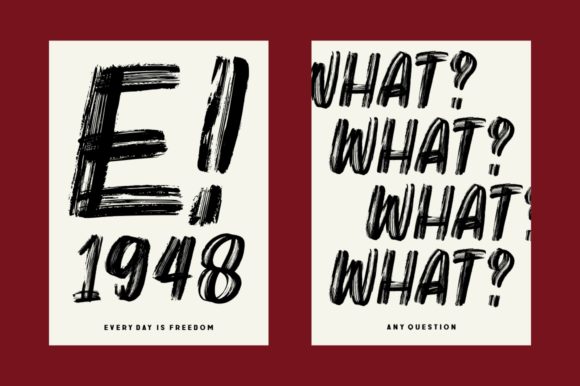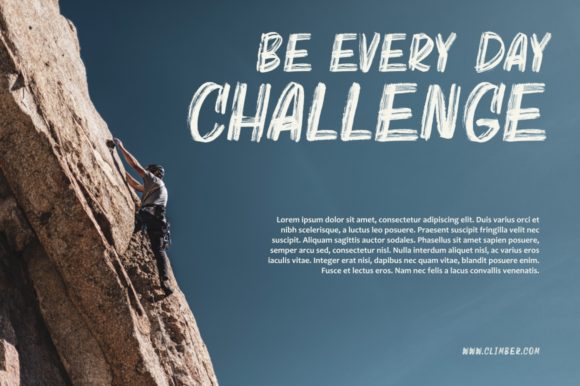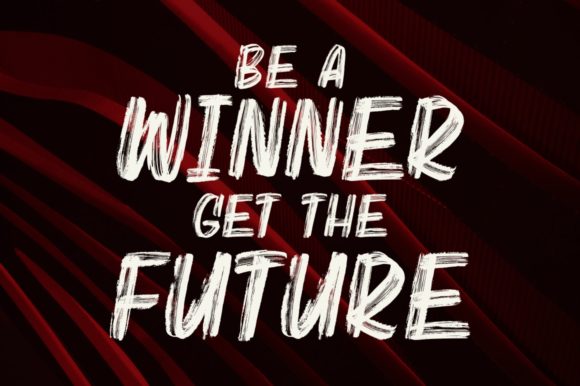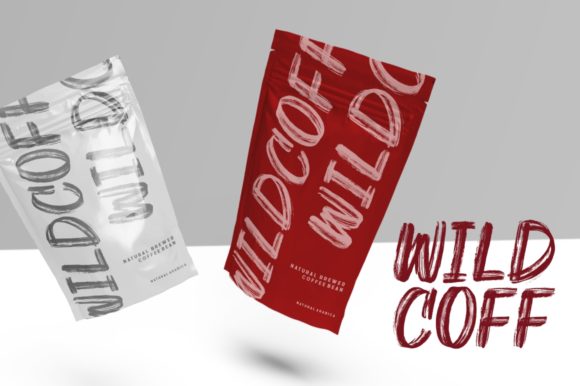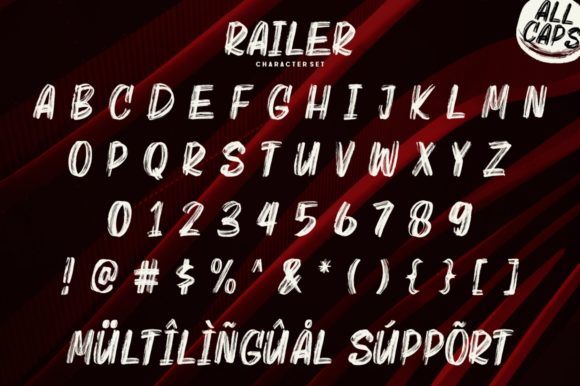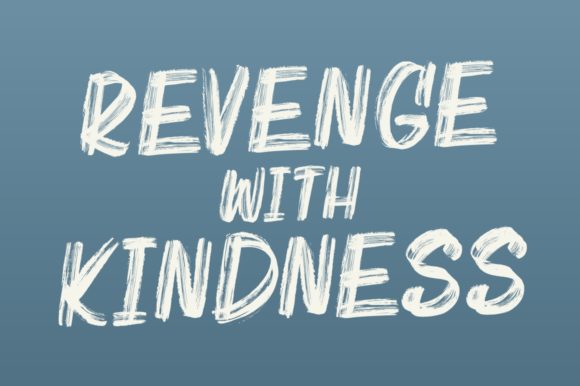
Introduction to Railer Font
Imagine you’re brainstorming ideas for a new brand, and suddenly, the perfect font pops into your mind. You envision a beautiful, hand-brushed design that combines curves with a fresh urban edge. That’s exactly what you’ll get with the Railer Font – a game-changer for any creative project.
As a designer, you’re always on the lookout for high-quality design resources that can elevate your work. The Railer Font is one such treasure, offering a unique blend of sophistication and edginess that’s guaranteed to make your designs stand out. Whether you’re working on a logo, product packaging, or social media post, this font is sure to add an eye-catching appeal. And the best part? It’s available for free download, making it a valuable asset for any creative project.
Key Features of Railer Font
- High-quality typography with a modern aesthetic, perfect for creative projects.
- Includes a comprehensive character set, with over 200 glyphs and symbols.
- Supports a wide range of languages, including Latin, Cyrillic, and Greek alphabets.
Honest Review: Railer Font
I recently had the chance to work with the Railer Font, and I must say it’s been an interesting experience. As a designer, I’m always on the lookout for high quality fonts that can elevate my creative projects.
One thing that stands out about the Railer Font is its versatility. It’s a perfect fit for any design project that requires a modern and sleek look. ✨ The font is also available for free download, which is a huge plus in my book. No need to break the bank for a great design resource.
However, I do have a few limitations to mention. ⚠️ The font could benefit from more character variations, which might limit its use in certain design contexts. Additionally, the font’s style can feel a bit overused, especially in designs where a more unique look is desired.
Overall, I think the Railer Font is a solid addition to any designer’s toolkit. While it may not be perfect, it’s a great resource for designers working on a budget or who need a quick and easy solution for their design projects.
The Railer Font is ideal for creating eye-catching headings, titles, and labels. It’s also perfect for designing posters, flyers, and brochures. With its transparent background, you can easily layer the font over other design elements.
Alternatives to Railer Font
Compared to Railer Font, Pacifico has a more refined and sophisticated look, making it suitable for formal events. While Railer Font is great for casual designs, Pacifico is ideal for high-end projects that require a touch of luxury.
Compared to Railer Font, Great Vibes has a more energetic and playful vibe, making it suitable for fun and youthful designs. While Railer Font is great for casual projects, Great Vibes is ideal for projects that require a lot of excitement and energy.